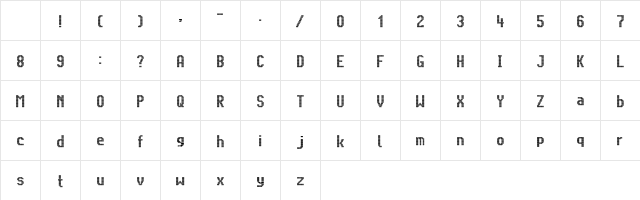
Complete Citaro Voor (Dubbele hoogte, breed) Regular glyph index. Displaying only characters natively supported by Citaro Voor (Dubbele hoogte, breed) Regular font.
Citaro Voor (Dubbele hoogte, breed) is a composed and adaptable typeface that performs quietly and consistently across a wide range of design contexts.